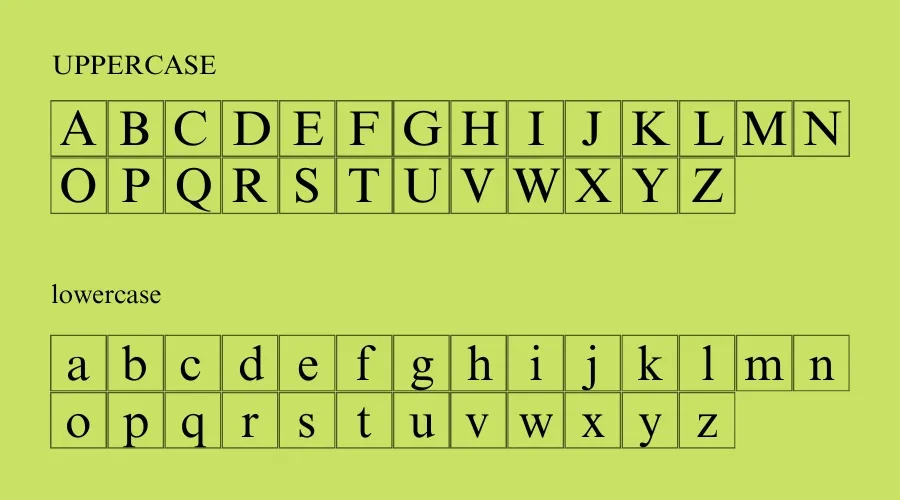
About Times New Roman Cyr Font
The Times New Roman Cyr Font is a famous serif texture family. This font was authorized by British newspapers. In 1031, the Times New Roman Cyr texture was conceived by a well-known graphic designer named Stanley Morison and published through a Monotype corporation. You may get it free from here for all your fun methods and tasks.
If you want to write a lengthy paragraph, then you need a clean and attractive texture for your projects, this font is a suitable choice for all your lengthy, short, headings, and title purposes, due to its keen and amazing features.